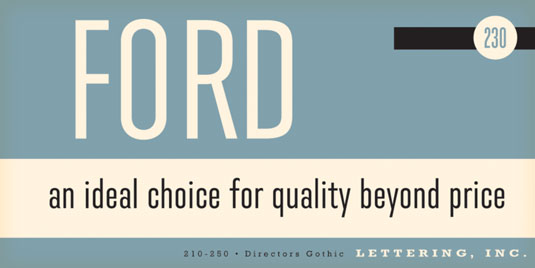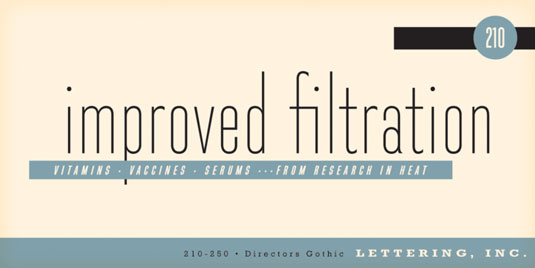
Directors Gothic by Neil Summerour
Today's typeface of choice is Directors Gothic by type designer Neil Summerour. Available from MyFonts, the design is described as: "Handcrafted by Lettering Inc as part of its core library of typefaces in the 1930s, Directors Gothic was dramatically expanded throughout the lifetime of the company and remains a timeless classic.
"Inspired by the Art Deco movement popular at the time of its creation, Directors Gothic was designed with an eye toward expanded utility for use in advertising headline and smart corporate materials."